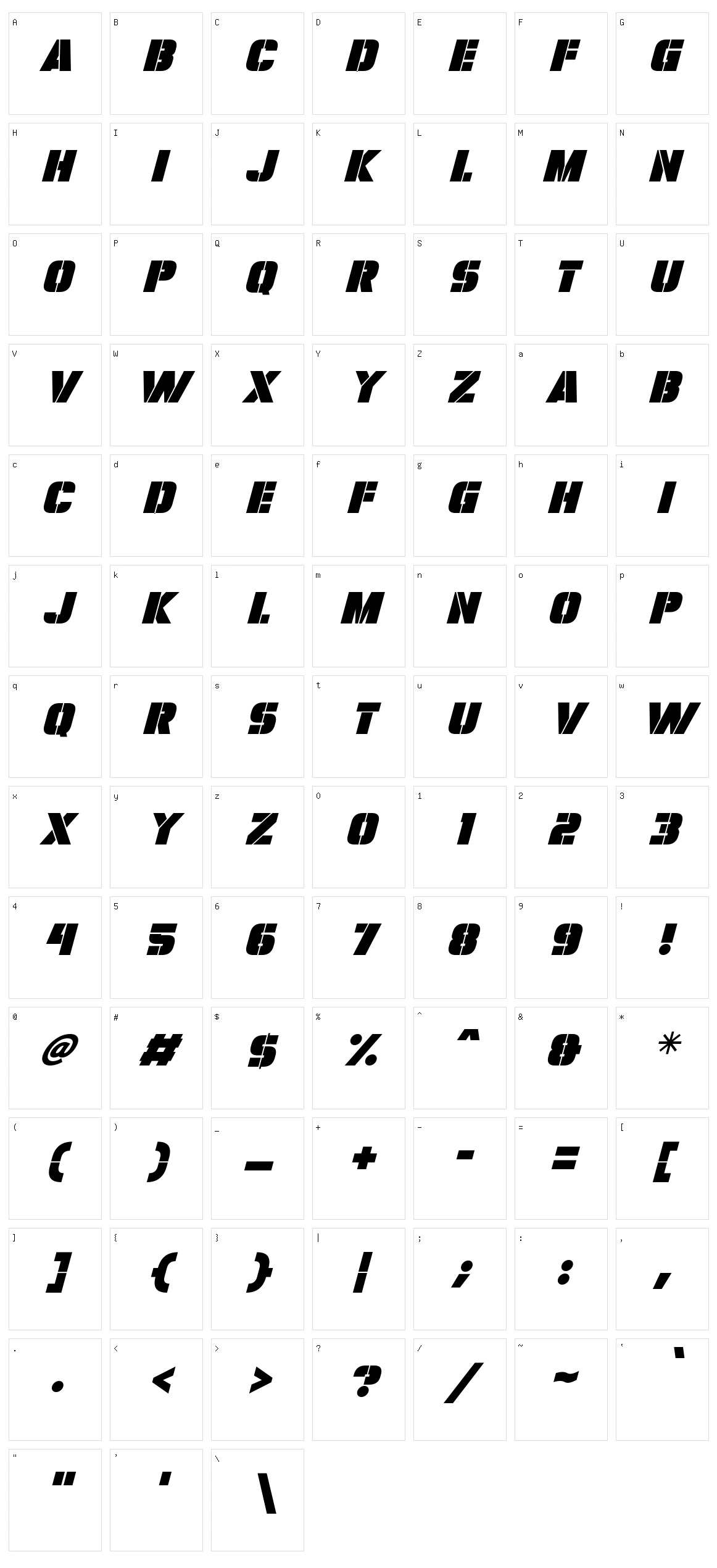
The free font Bulletproof is carefully designed by Hawtpixel, showcasing a thoughtful balance of creativity and usability and falls under the Stencil font style. When you download the ZIP file, it contains only 106.28 KB of font files, making it lightweight and quick to download. Please review the license details below to understand permitted usage and distribution rights. If license information is not available, we recommend using this font for personal projects only or contacting the author directly for commercial usage permissions.